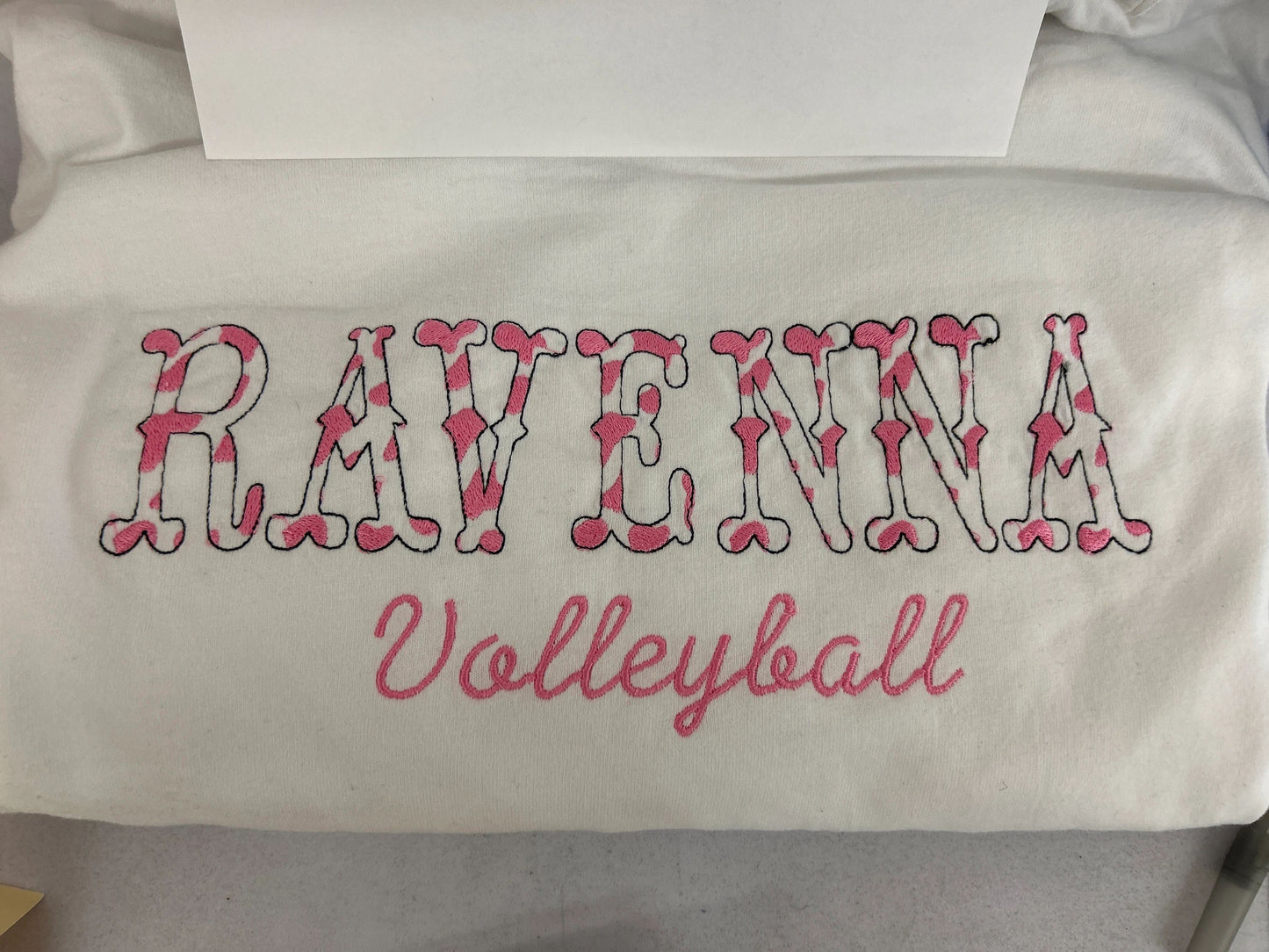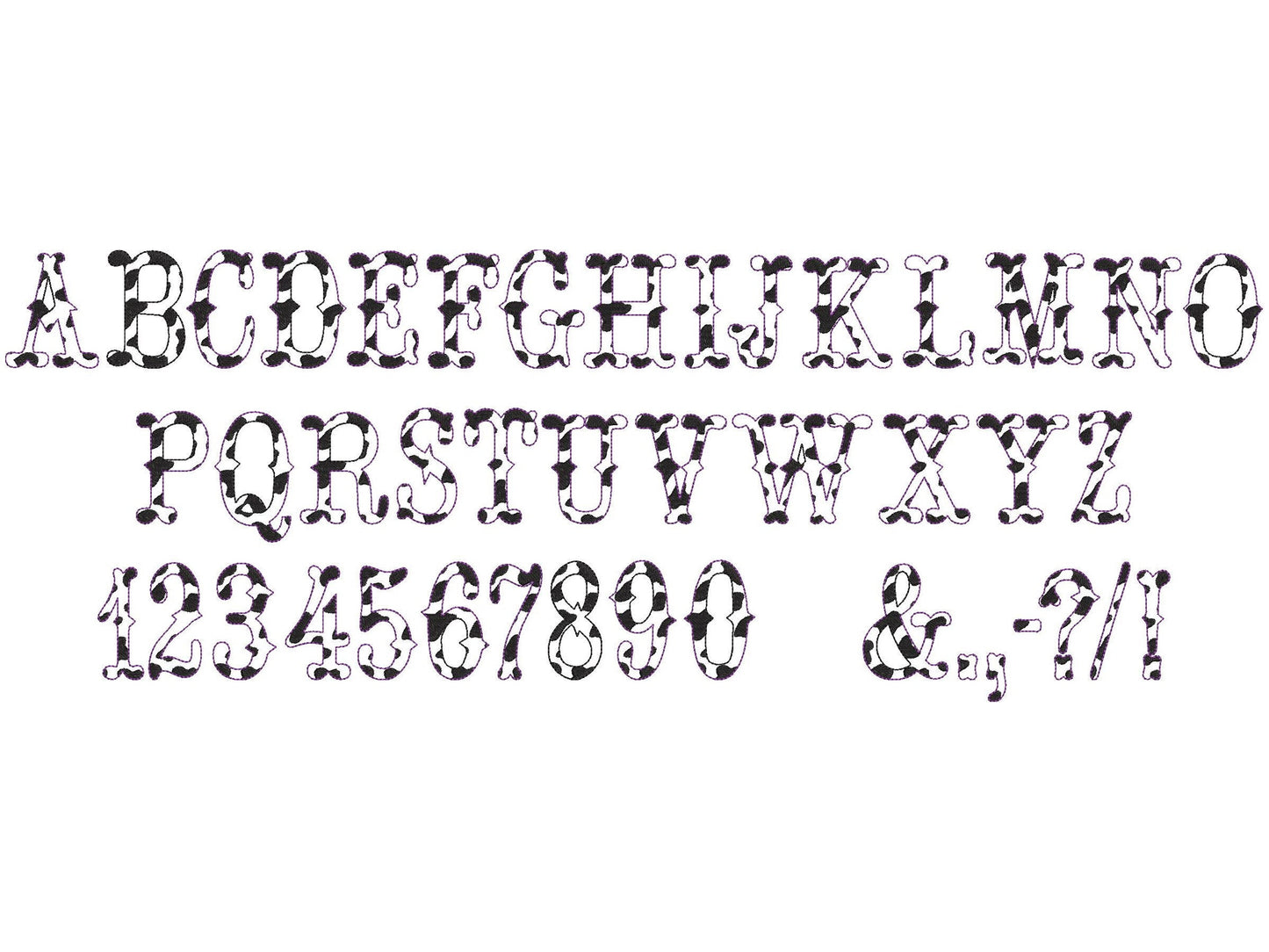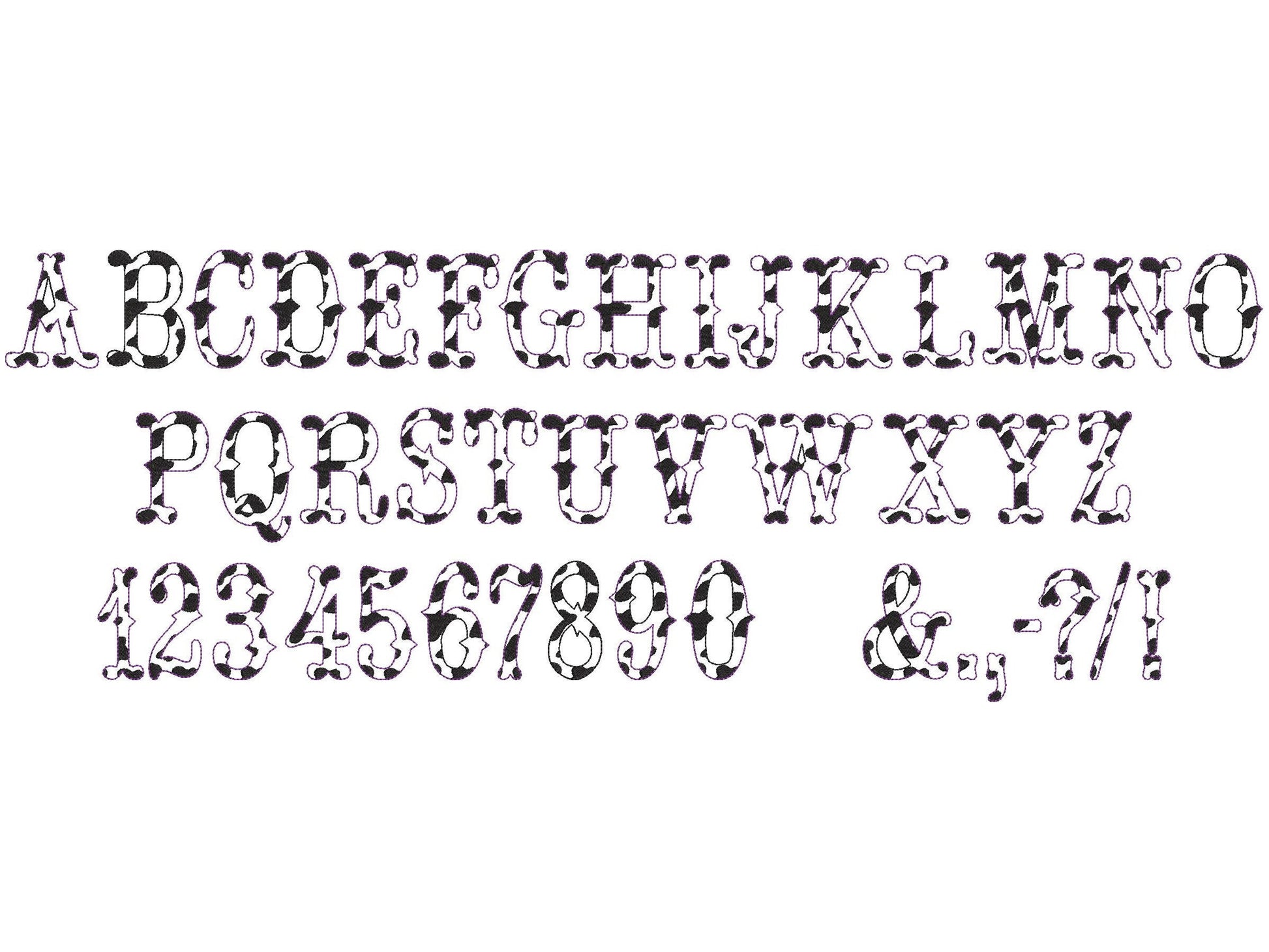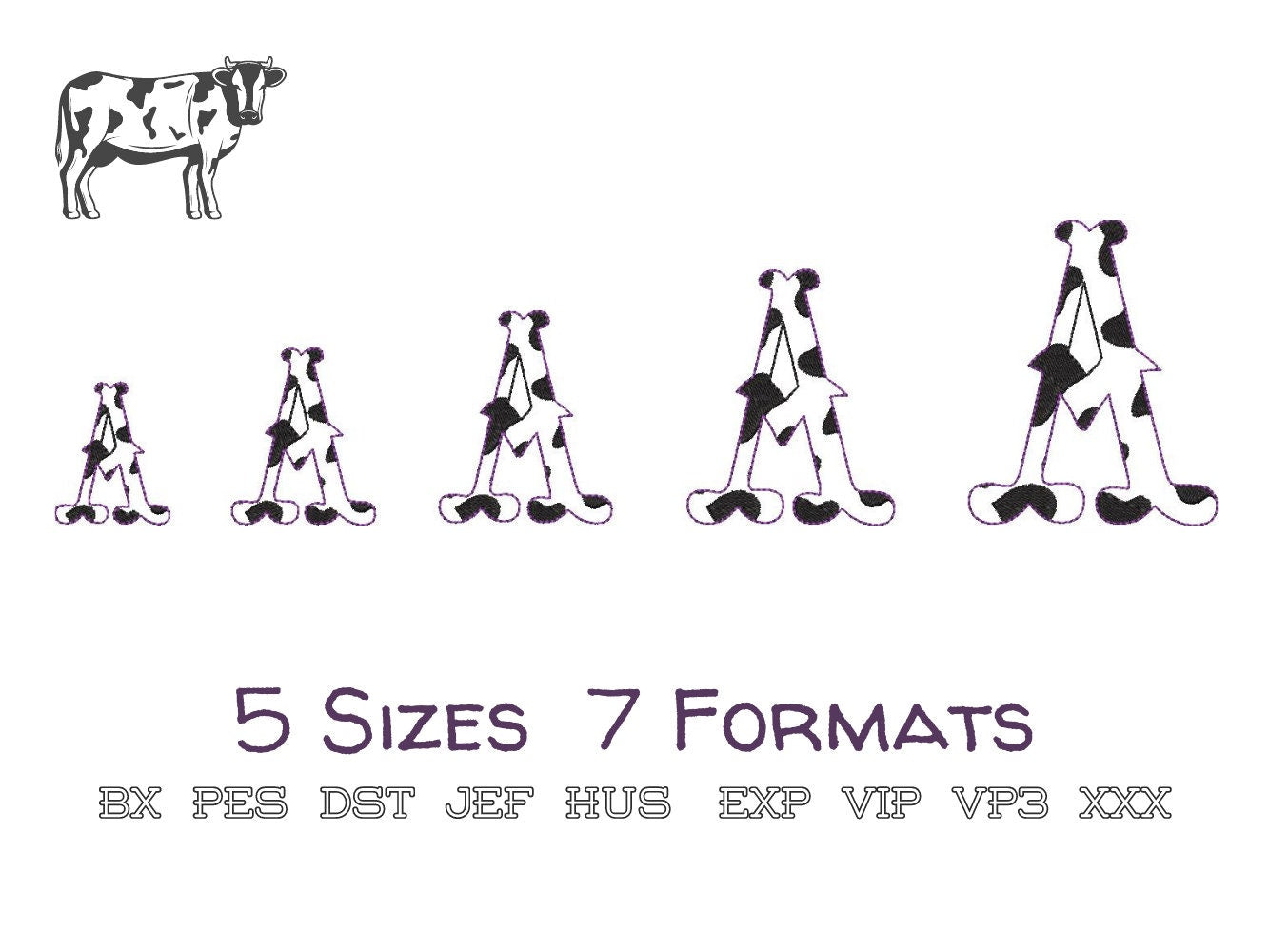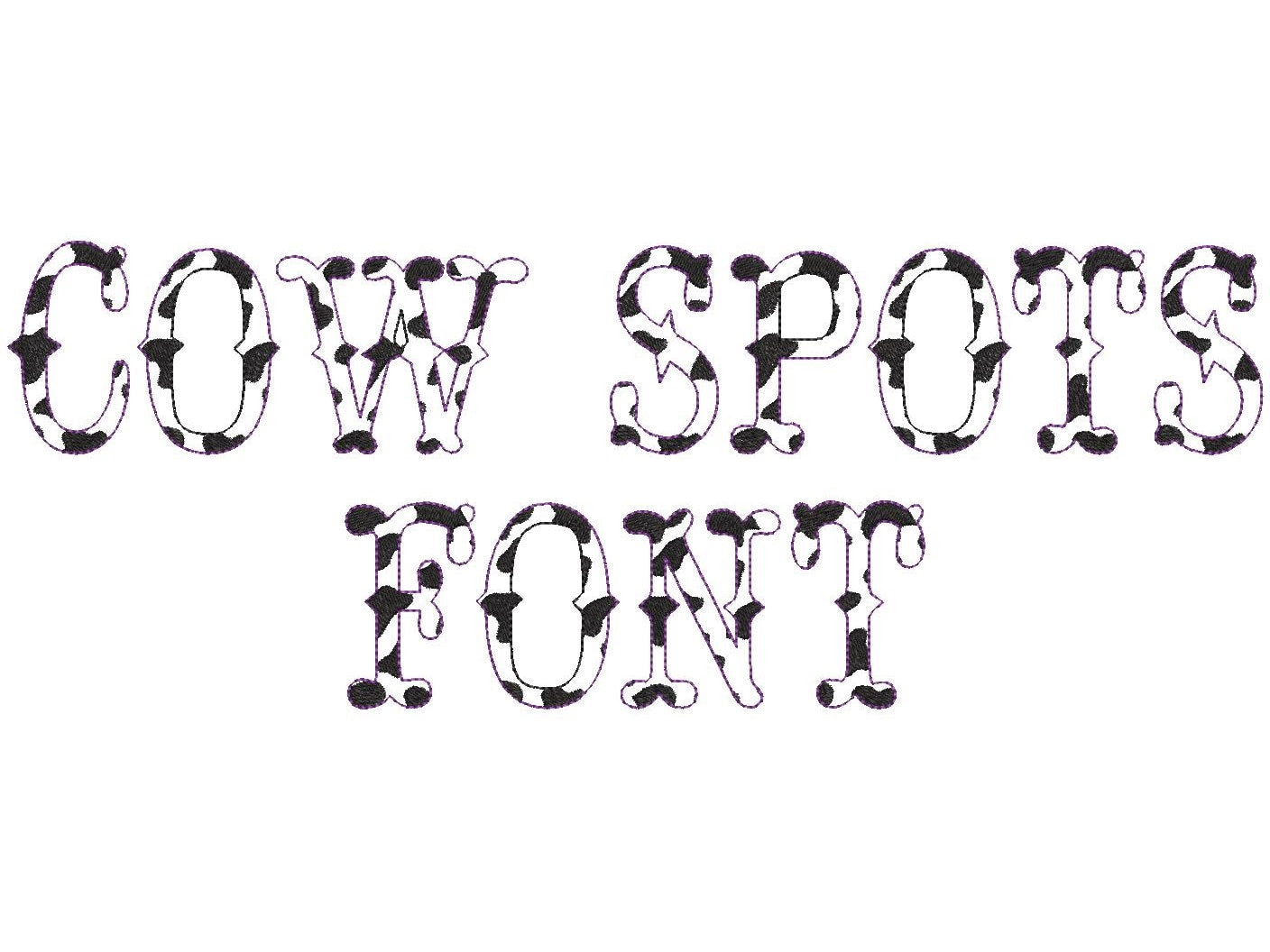
Or click to open the linkA western cow spots patterned font in quick stitch that looks like lace, for fun farm-themed kids' names on shirts and bags.
The cow spots are part of the embroidery and the fabric shows through. Uppercase letters, numbers and punctuation in five sizes: 1.8, 2.3, 2.7, 3.3 and 3.9 inches.